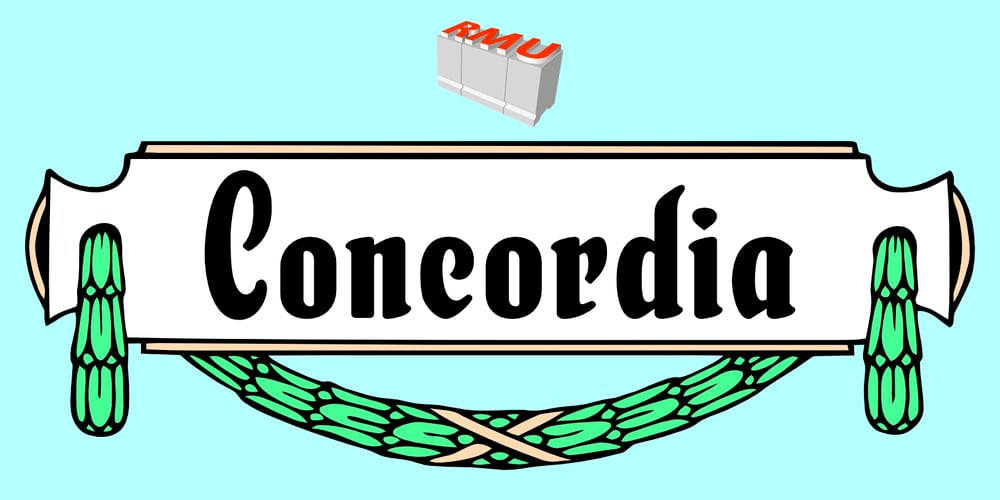
Concordia
Concordia font
Concordia Font Family was designed by Ralph M. Unger and published by RMU. Concordia contains 1 styles and family package options. In 1915 the Leipzig based foundry Heinrich Hoffmeister released the bold condensed version of its Sensation font family which is the most outstanding.The letters f, l and the long s have stylistic alternatives. To get access to all ligatures it is recommended to activate both OT features Standard and Discretionary Ligatures.